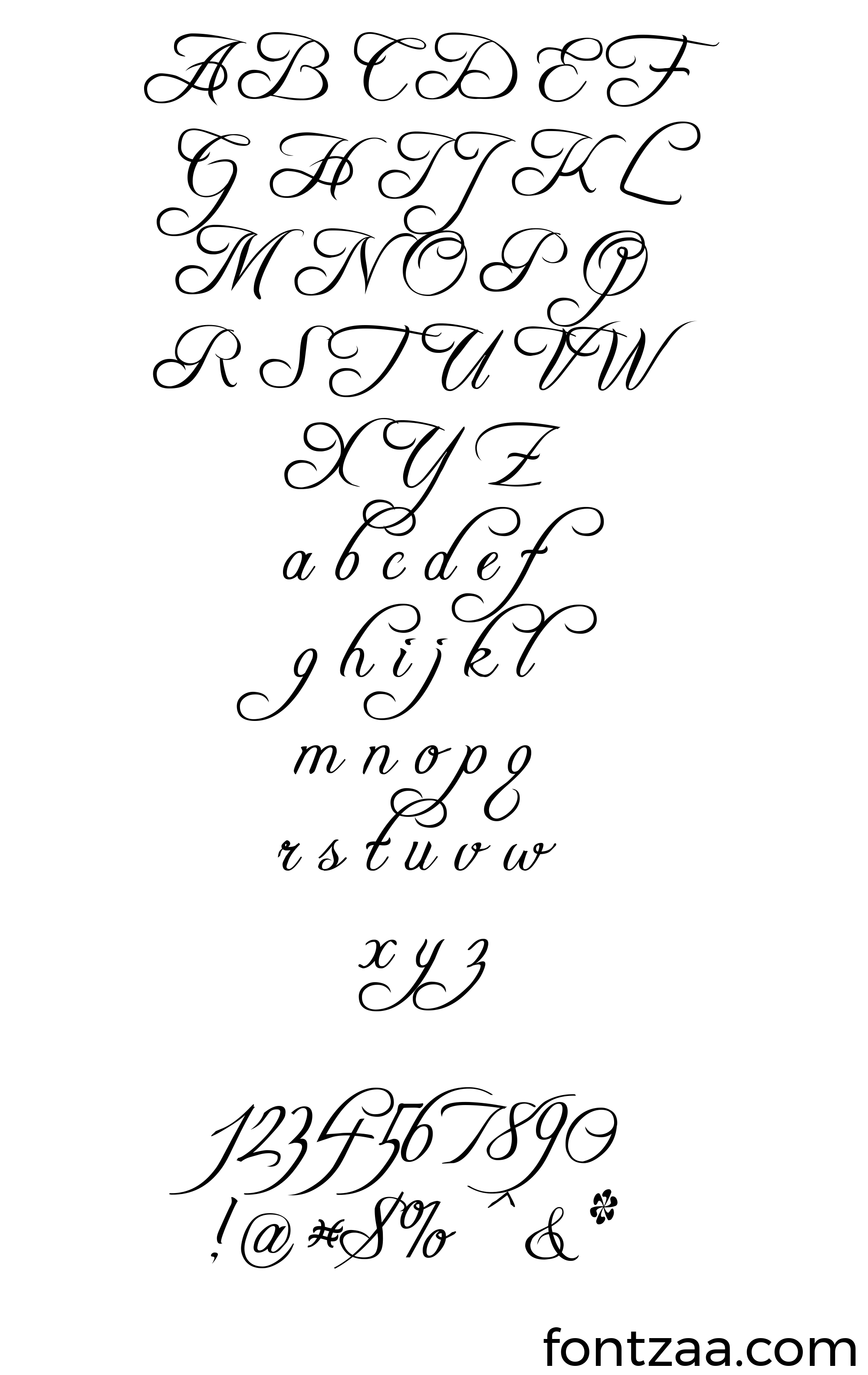
Discover the elegance and versatility of Freebooter Script Font, a font designed to increase the visual appeal of your projects. From branding campaigns and website typography to printed publications, Font Name combines modernity with classic elements and is, therefore, very appropriate for many purposes. It features clean lines and very well-balanced proportions to ensure readability at any size; therefore, it is one of the fonts any designer would use to make a powerful visual statement. Interact with the sophisticated charm of Freebooter Script Font, and let it take your design projects to new heights.
Freebooter Script Font Family
- Freebooter Script Regular